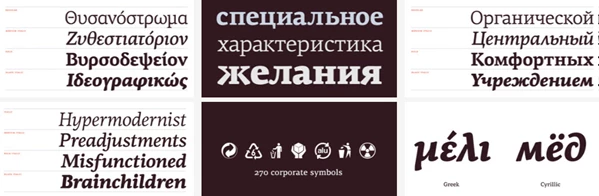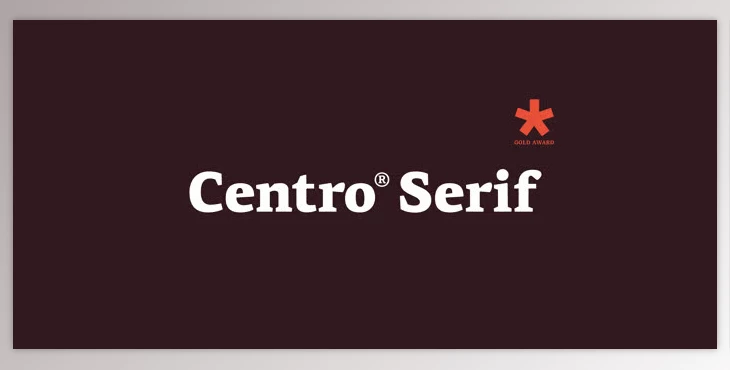
The PF Centro Serif Pro Font Family is a renowned typeface known for its functionality and sophistication. The PF Centro font family comes from the Centro Pro type system and boasts a Gold Award from the European Design Awards (2008), an Excellence Award from the International Type Design Competition (2009), and more. It includes 40 fonts with 1519 glyphs per font in total, consisting of three types of superfamilies: serif, sans, and slab. Furthermore, it champions many languages, from Latin to Greek to Cyrillic, and features true italics.
The PF Centro Serif Pro Font Family possesses a subdued yet identifiable persona that allows for legibility and flexibility across multiple design applications. Fonts like these are rare assets for pan-European companies as they've been used for highly reputable institutions and corporate needs, whether in print or physical form. The font family champions used in newspapers, magazines, and corporate branding, as well; many of the ten fonts boast an additional 270 symbols each available for international citizens relative to packaging, signage, public spaces, and transport.